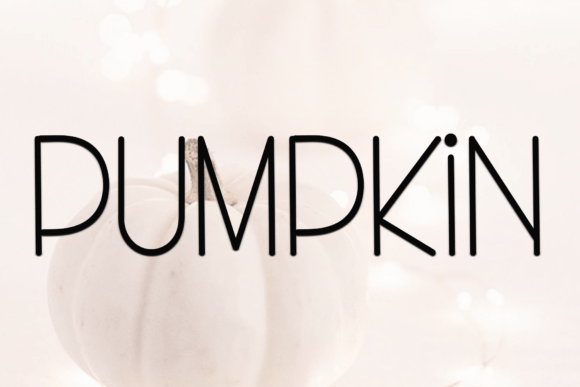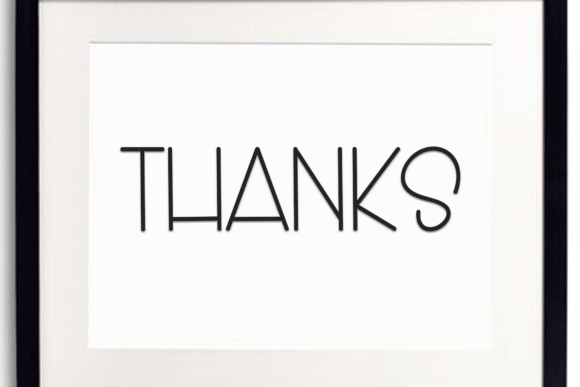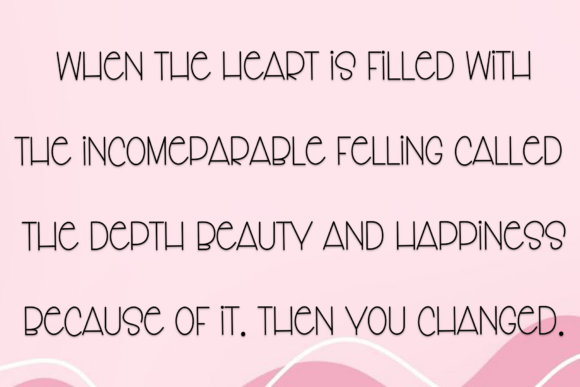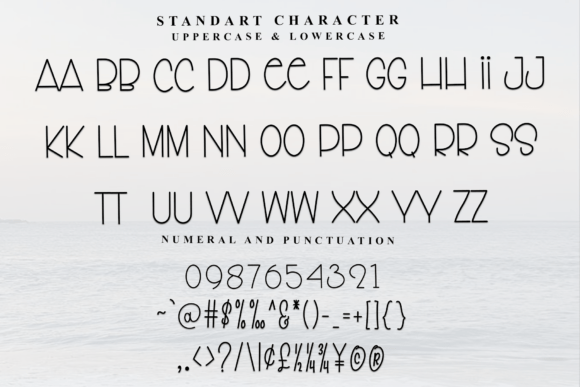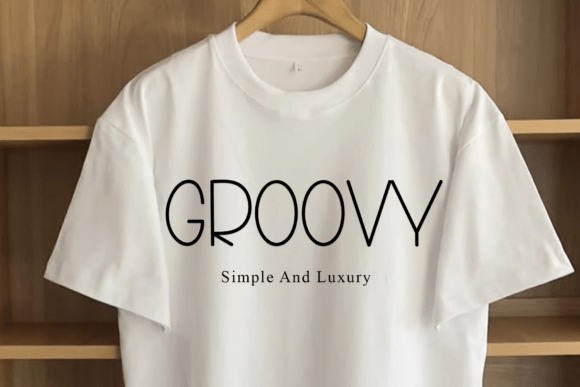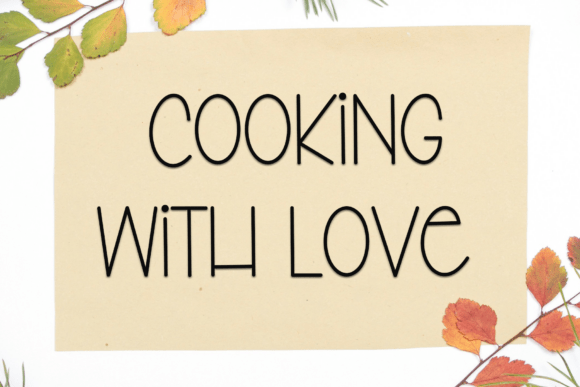
The Birth of a Beautiful Design
As a designer, have you ever been struck by the perfect font that brings your creative vision to life? For many of us, it’s that moment of inspiration when everything falls into place, and our design takes on a new level of beauty and meaning. That’s exactly what the Beautiful Font aims to achieve.
With its soft, unique touch and distinctive strokes, the Beautiful Font is a game-changer for designers. Its versatility and wide range of characters make it perfect for a variety of projects, from design to crafts and beyond. Whether you’re working on a Windows or open-source platform, this natural font style is sure to enhance your designs and make them appealing to a wide audience.
Beautiful Font Key Features
- Font Family: Beautiful Font comes in 6 unique font styles, including serif, sans-serif, and script fonts, each with 12 weights and 12 styles.
- Character Set: Supports a wide range of languages, including Latin, Cyrillic, Greek, and Devanagari, with over 1000 glyphs and 3000 characters.
- Unique Characteristics: Features a unique blend of elegance and sophistication, with subtle nuances and details that set it apart from other fonts.
Designer Review: Beautiful Font
Overall, I was quite impressed with Beautiful Font. It has a lot of potential, but like any font, it’s not perfect. Here’s my honest review.
- Unique aesthetic: Beautiful Font has a distinct, elegant feel that sets it apart from more generic fonts.
- Good legibility: At larger sizes, the font is easy to read and understand.
- Wide range of uses: Beautiful Font is versatile and can be used in a variety of contexts, from body text to headings.
- At smaller sizes, the font can become difficult to read, especially for those with vision impairments.
- Some letters, such as the ‘e’ and ‘a’, can be easily confused with one another.
- There may be some issues with font rendering at certain resolutions or screen sizes.
Overall, Beautiful Font is a solid choice for designers looking for a unique, elegant font. While it has some limitations, its strengths far outweigh its weaknesses. With a bit of caution and careful consideration of size and context, Beautiful Font can be a valuable addition to any design project.
Use “Beautiful Font” to add a touch of elegance to your designs. Combine it with other stylish fonts to create a unique look. Experiment with different font sizes and styles to create visual interest. Use it to highlight important information or create a sense of hierarchy in your design.
“Beautiful Font” is perfect for:
– Creating invitations and wedding stationery
– Designing luxury branding materials
– Adding a touch of sophistication to presentations and documents
– Creating stylish social media graphics and advertisements